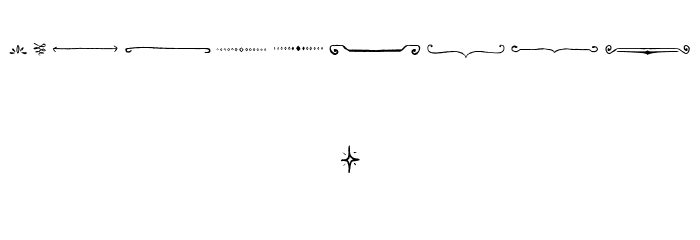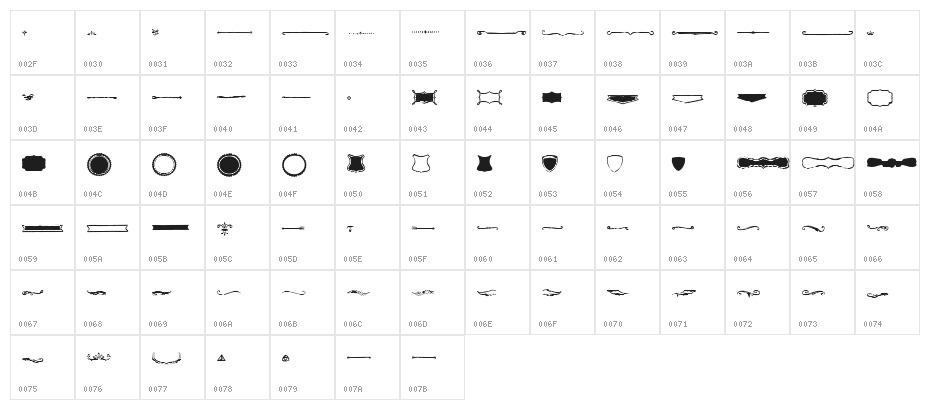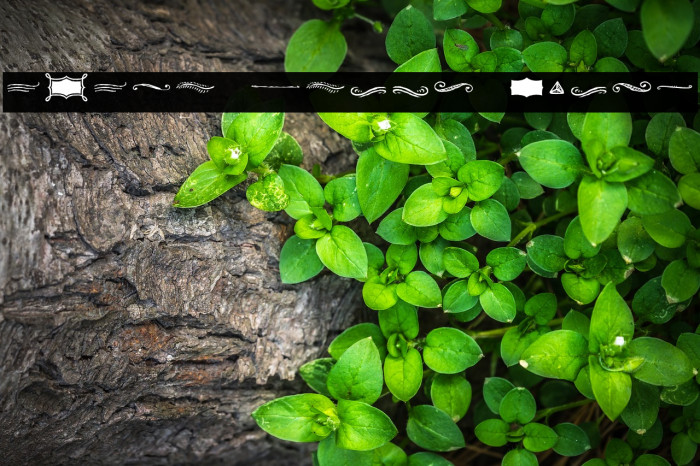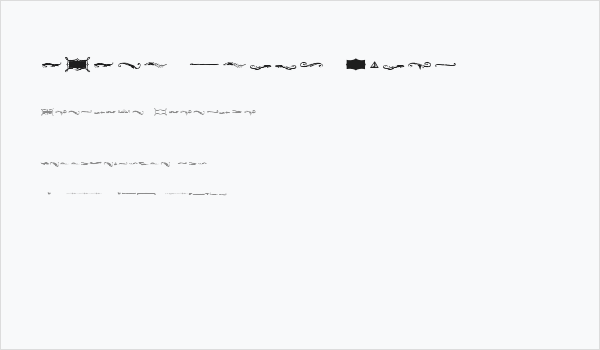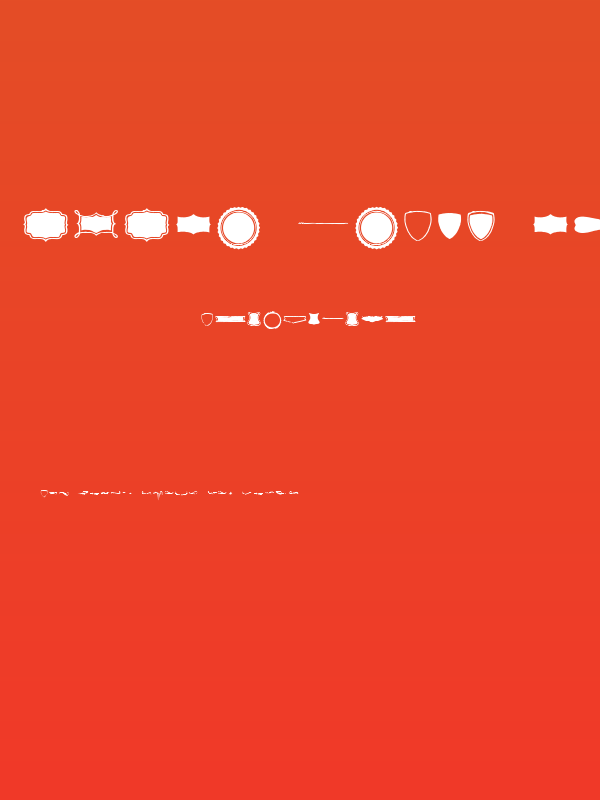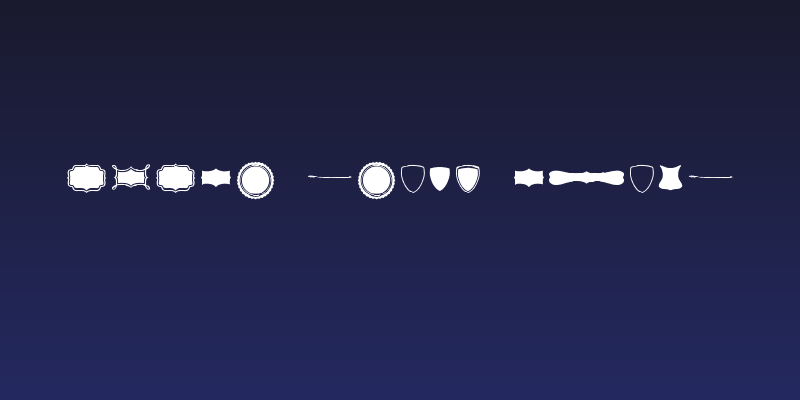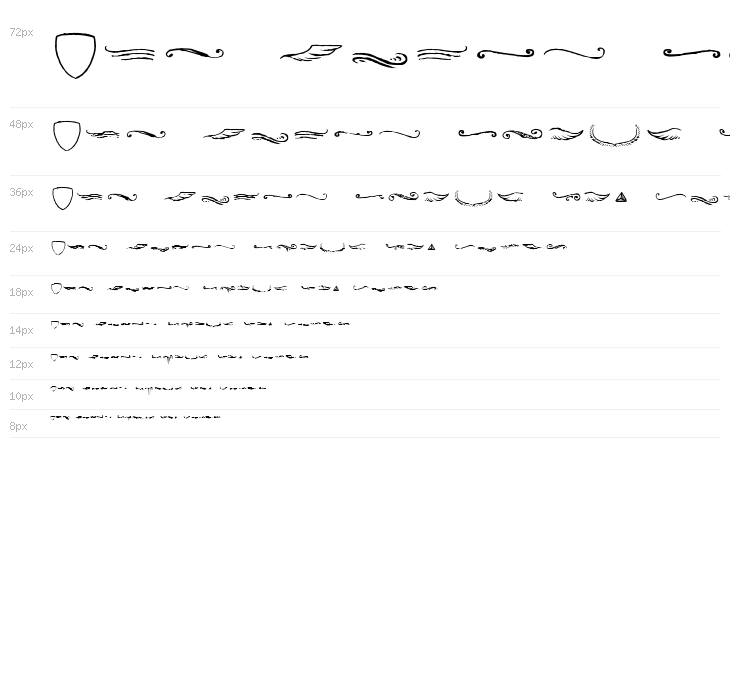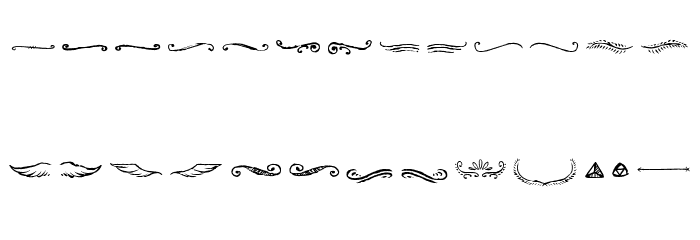
iCiel Altus Extra Font
iCiel Altus Extra Description
A collection of decorative vector-style ornaments, frames, dividers, and embellishments with intricate, hand-drawn flourishes and vintage motifs. The glyphs include shields, banners, ornate lines, and various border elements, all rendered with fine, variable line weights and elegant curves.
| Overall Style | Vintage, Decorative |
| Use Case | Borders, Frames, Dividers, Decorative accents |
| Proposed Projects | Wedding invitations, certificates, vintage posters, branding, packaging, scrapbooking, decorative borders. |